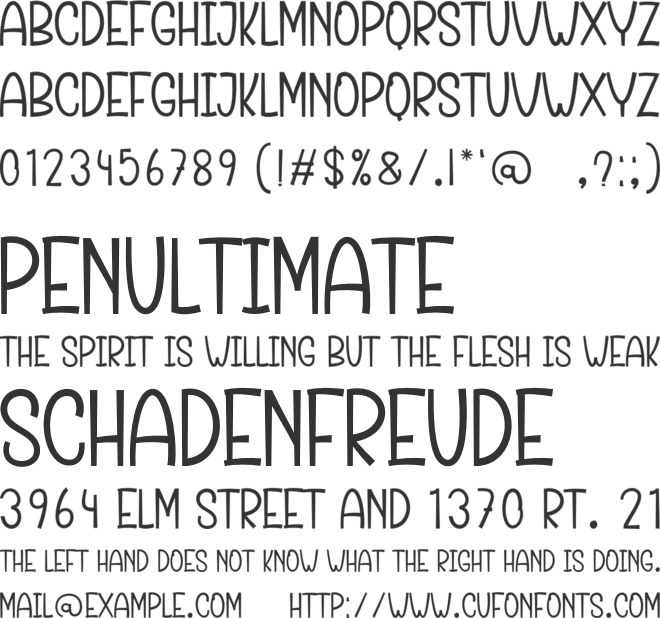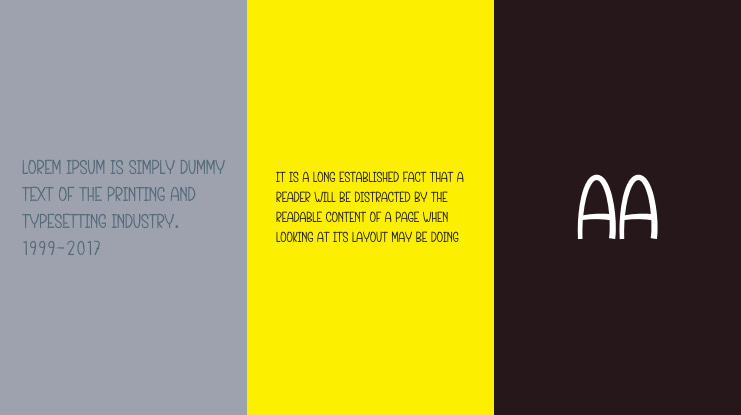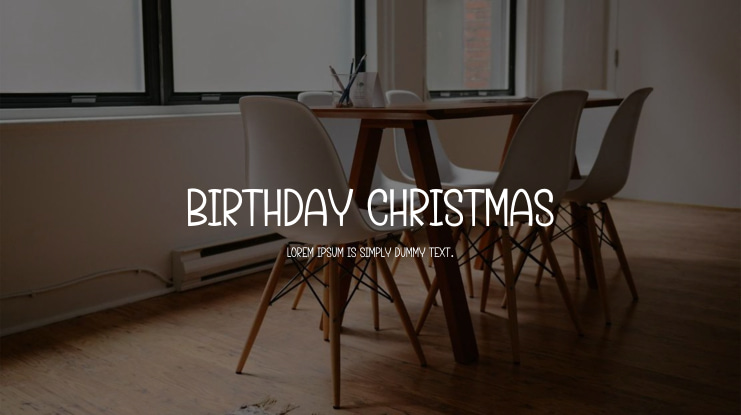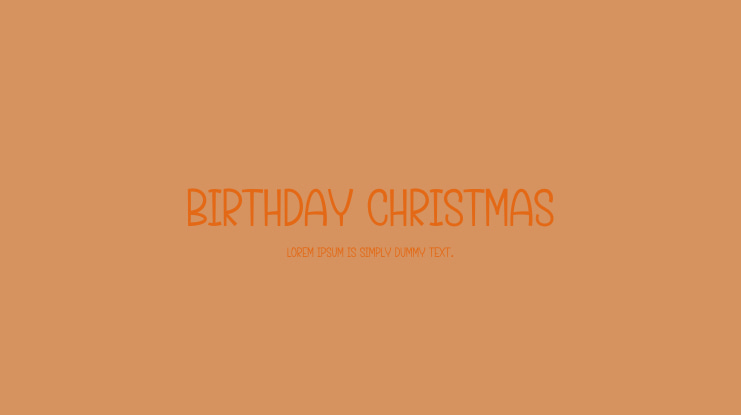
Birthday Christmas Font
The latest style letters are perfect for wall displays, wedding invitations, social media post logos, advertisements, product packaging, product designs, labels, photography, watermarks, invitations, stationery, and any project that requires tasteful handwriting.
Birthday Christmas font preview
Birthday Christmas Regular font